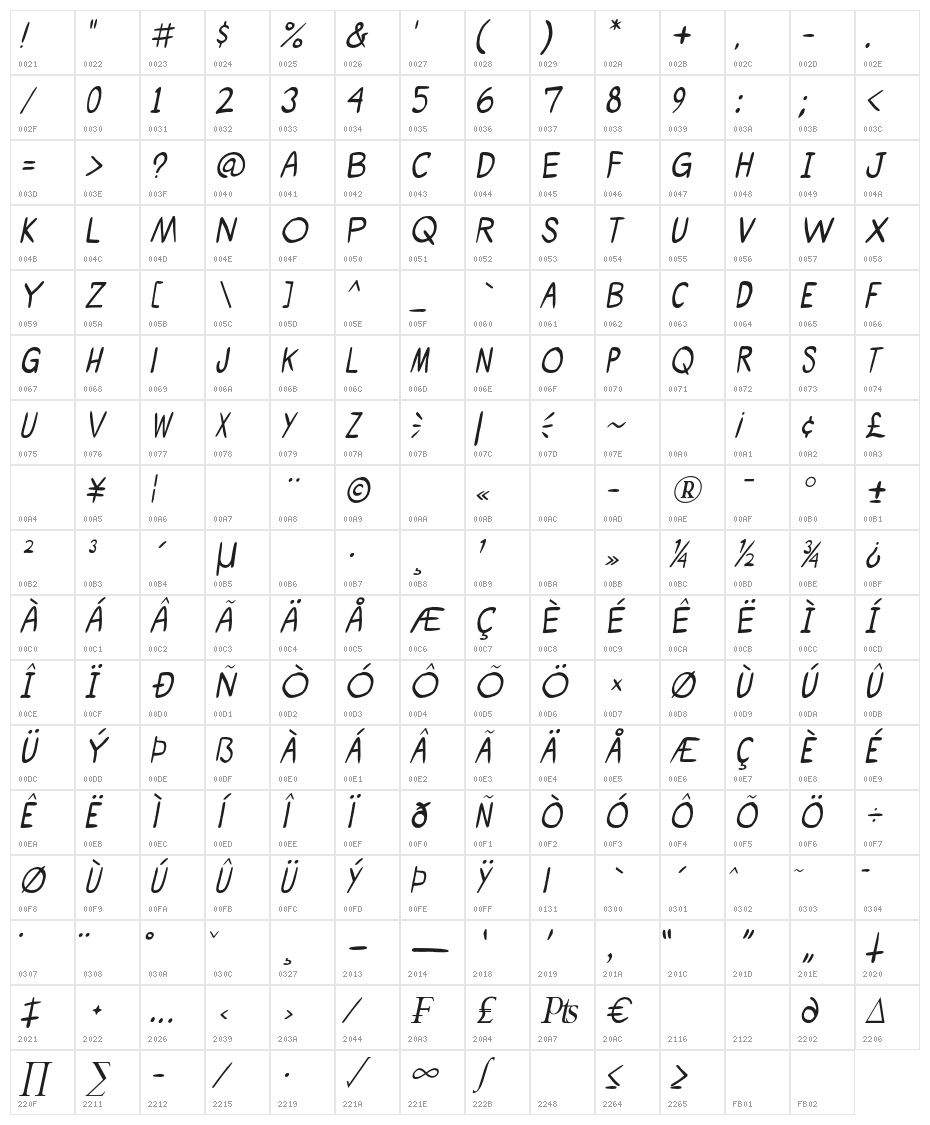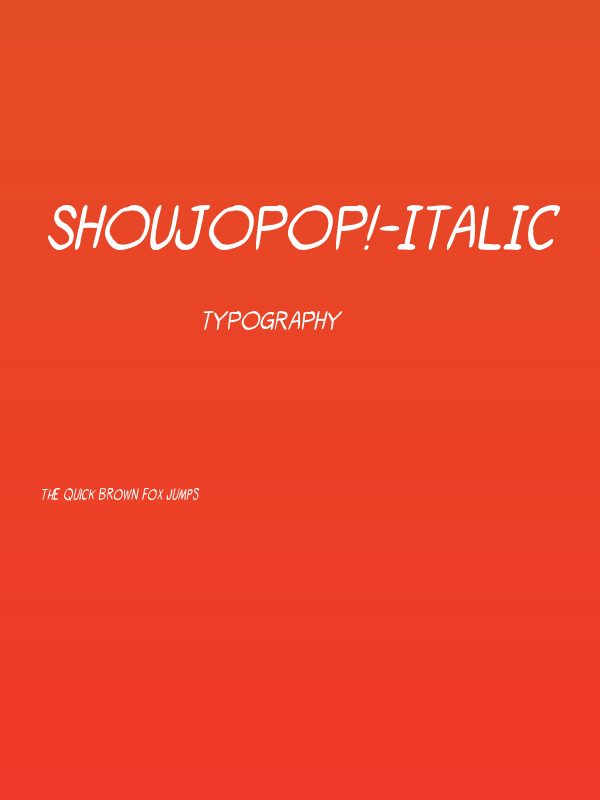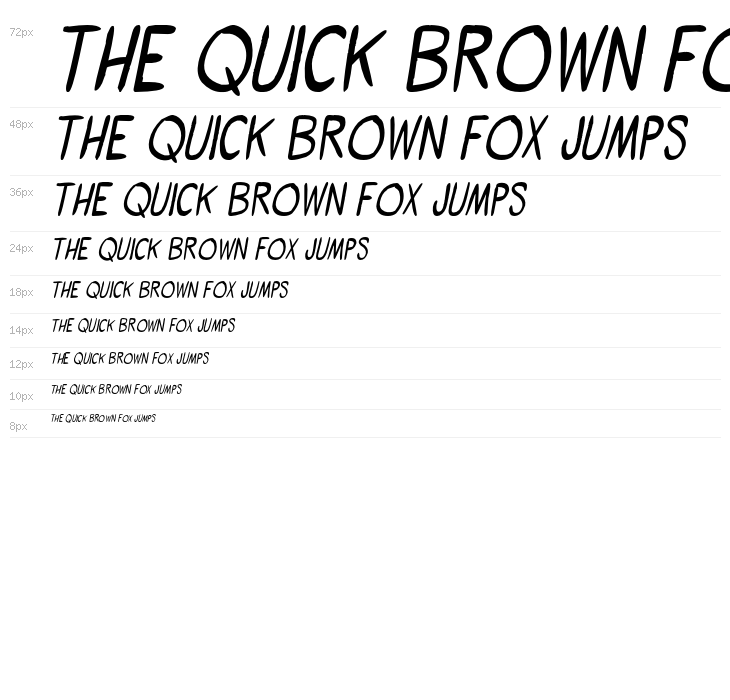
ShoujoPop!-Italic Font
ShoujoPop!-Italic Description
This playful and energetic font features a handwritten style with a slight slant, giving it a dynamic and lively appearance. The characters are bold and rounded, with a consistent stroke width that adds to its approachable and friendly look. The uppercase and lowercase letters maintain a uniform height, while the numerals and special characters are designed to complement the overall style. The font's informal and casual nature makes it ideal for projects that require a touch of whimsy and creativity.
| Proposed Projects | Ideal for children's books, comic strips, playful branding, and creative posters. |